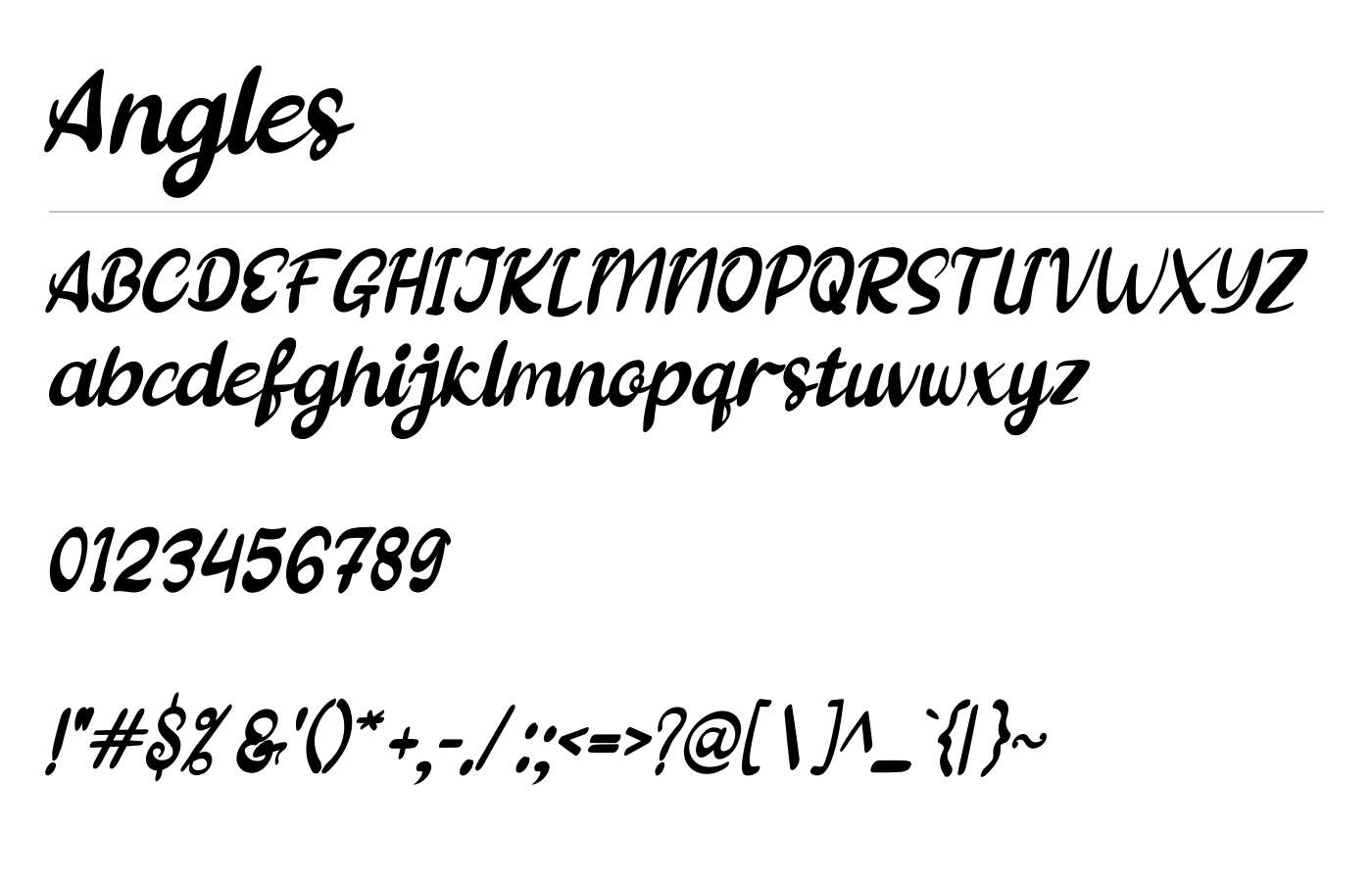
Angles Font is a lively, brush-script style typeface with a medium weight and moderate contrast, featuring smooth yet dynamic strokes that give a sense of motion and personality. Its playful curves and slightly informal style make it perfect for creative branding, invitations, and casual headlines where a friendly, approachable vibe is desired. This font works well in designs that want to blend elegance with a relaxed, handcrafted feel.
Angles Font
About Angles Font